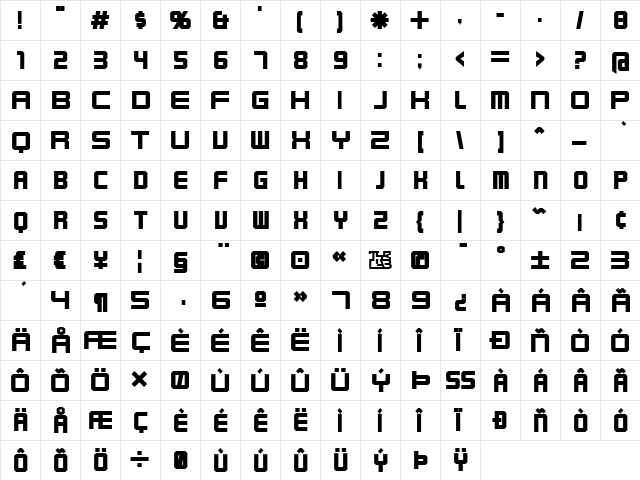
Karnivore Bold
Design Context for Karnivore Typeface
Karnivore takes a measured approach to typography — its balanced proportions and neutral character make it a reliable workhorse for both digital and print work. Its bold stroke weight gives it real presence on the page.